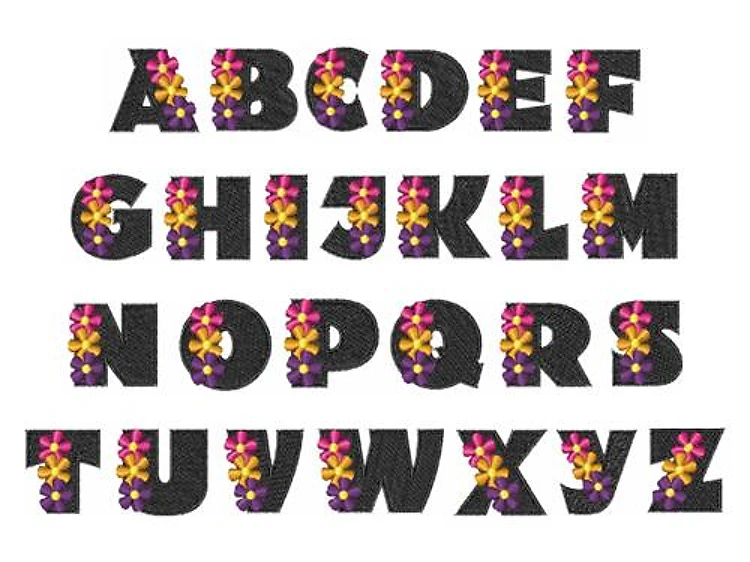
Great Notions is happy to present ALOHA FONT machine embroidery font which has Bold and colorful decorative machine embroidery font with floral accents, ideal for holiday-themed projects like festive banners or decorations. Available in PES, DST & 11 other formats. included. If you would like to view more embroidery fonts and alphabets please search our embroidery fonts page.